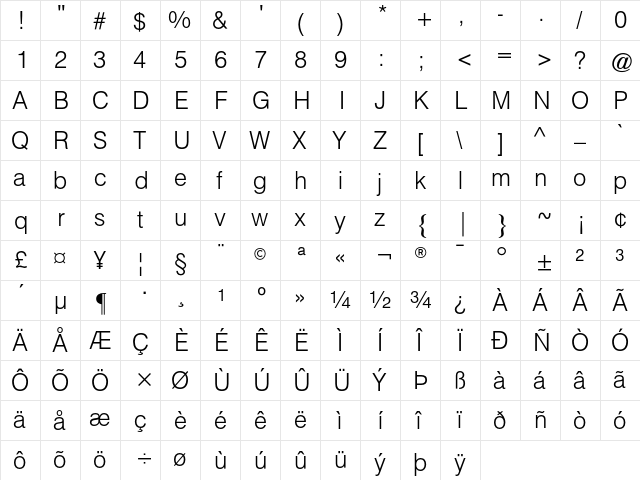
ATTriumvirate Regular
Design Context for ATTriumvirate Typeface
ATTriumvirate offers clean, dependable letterforms without strong stylistic allegiance, making it a practical choice for designers who need flexibility.